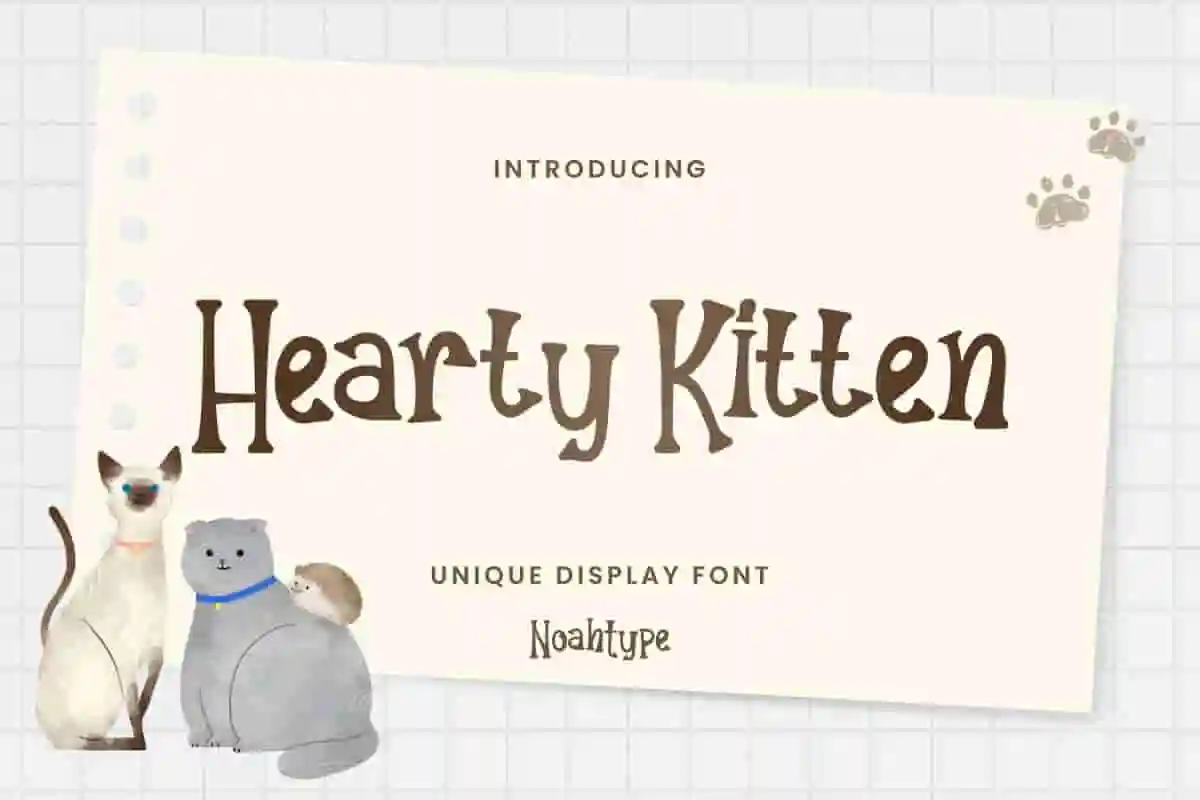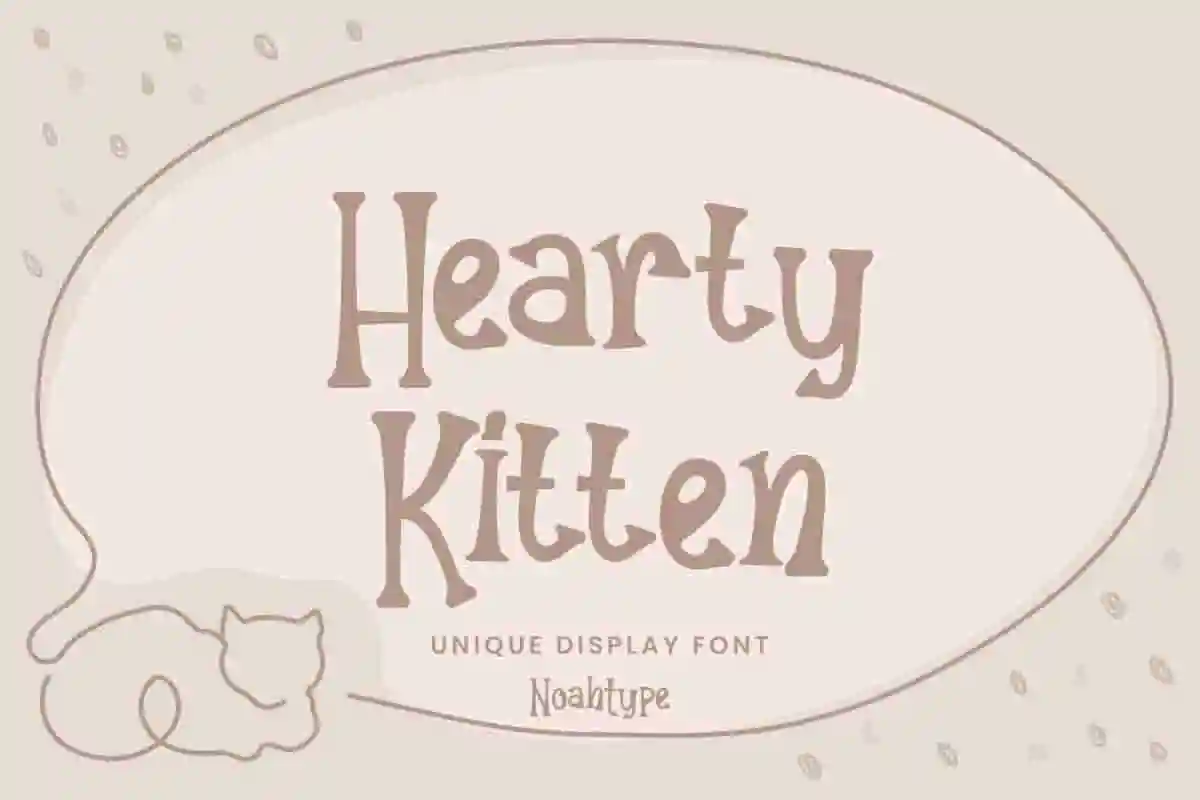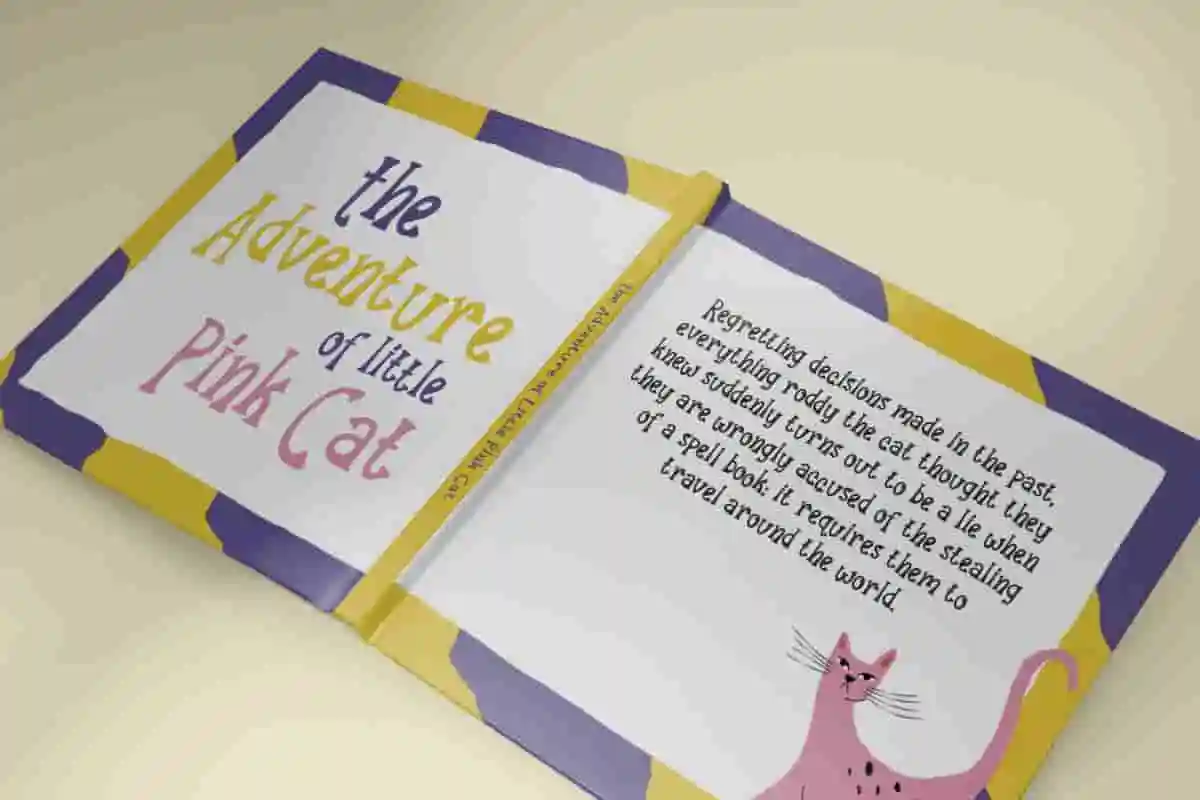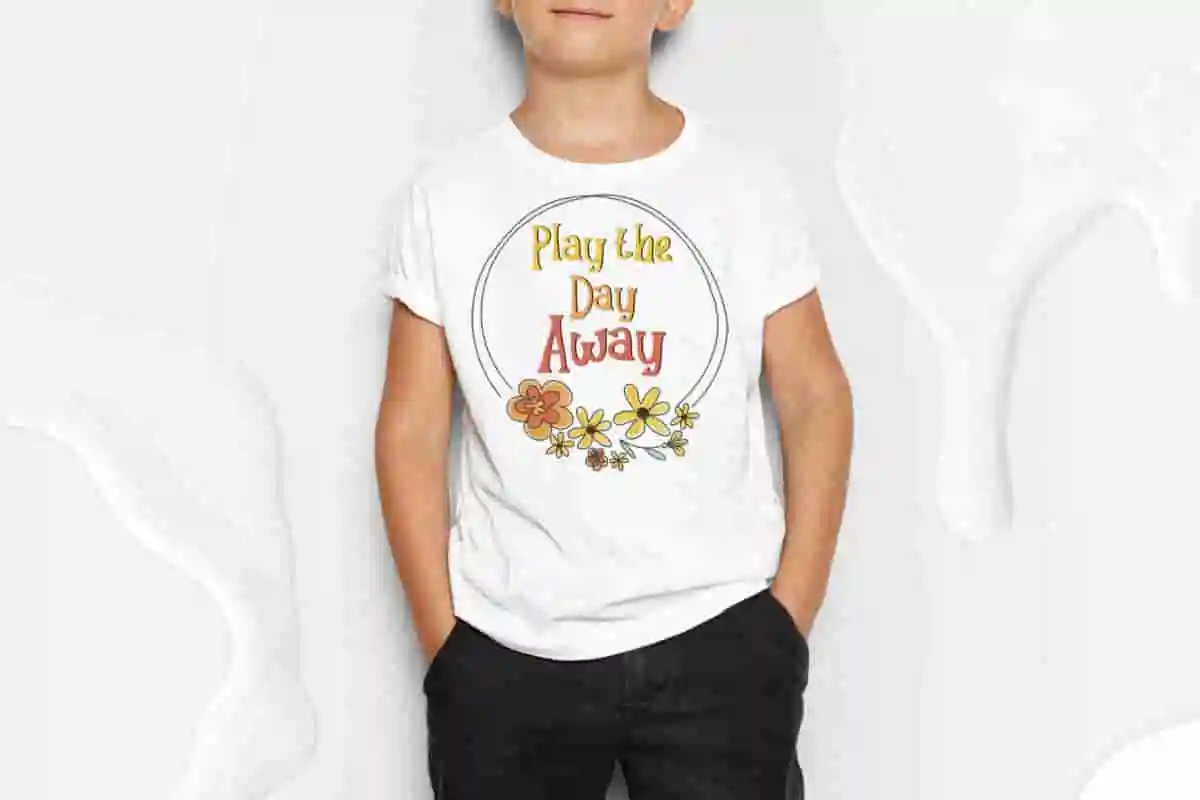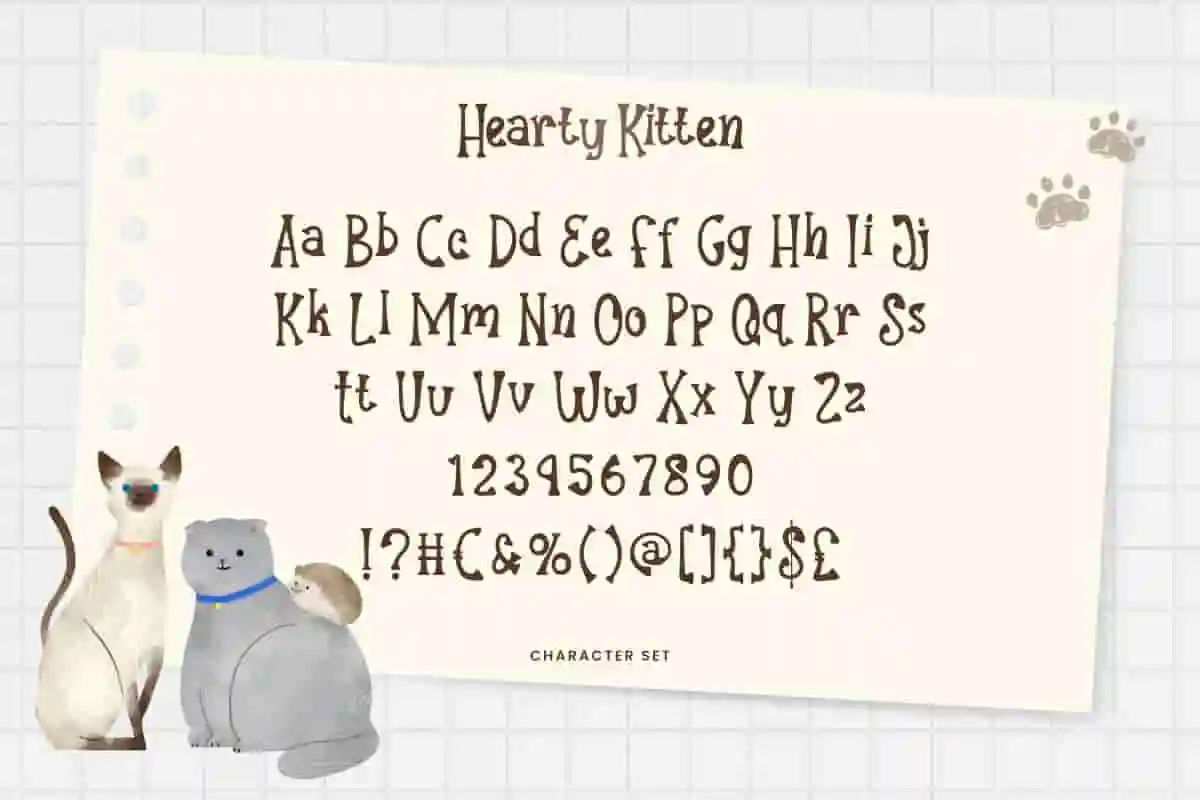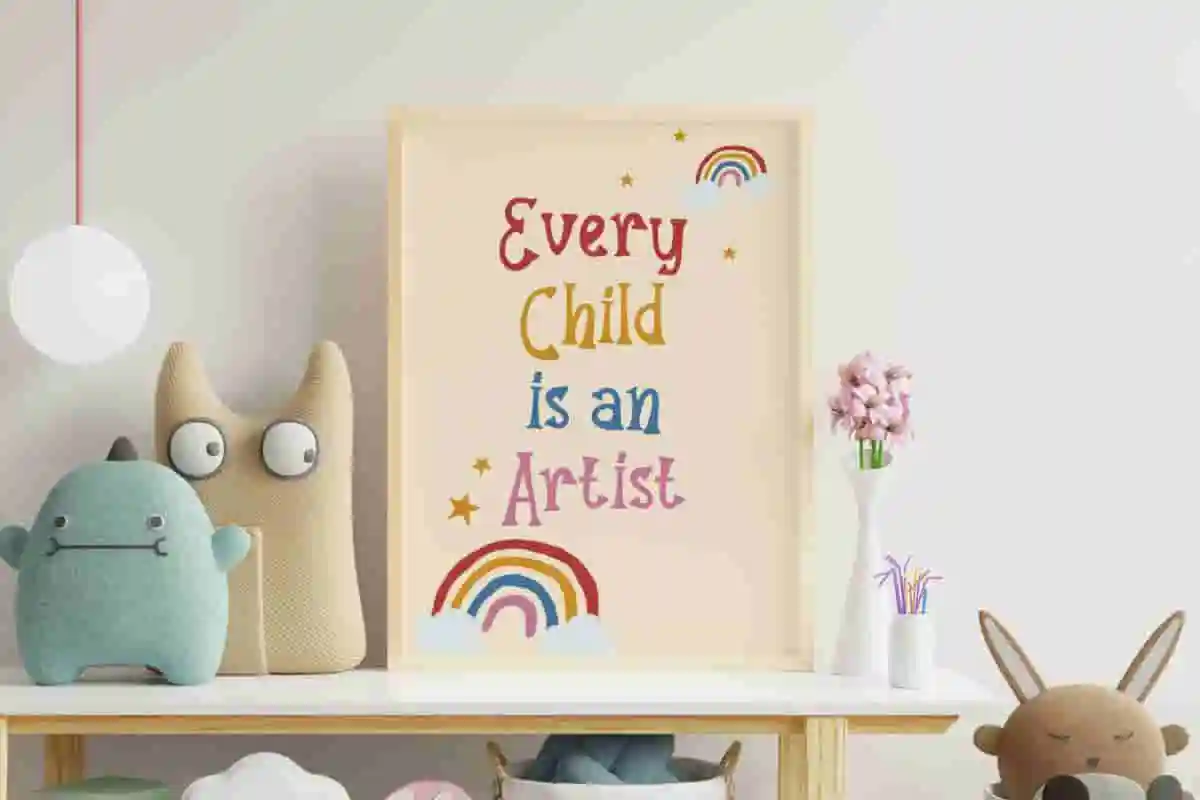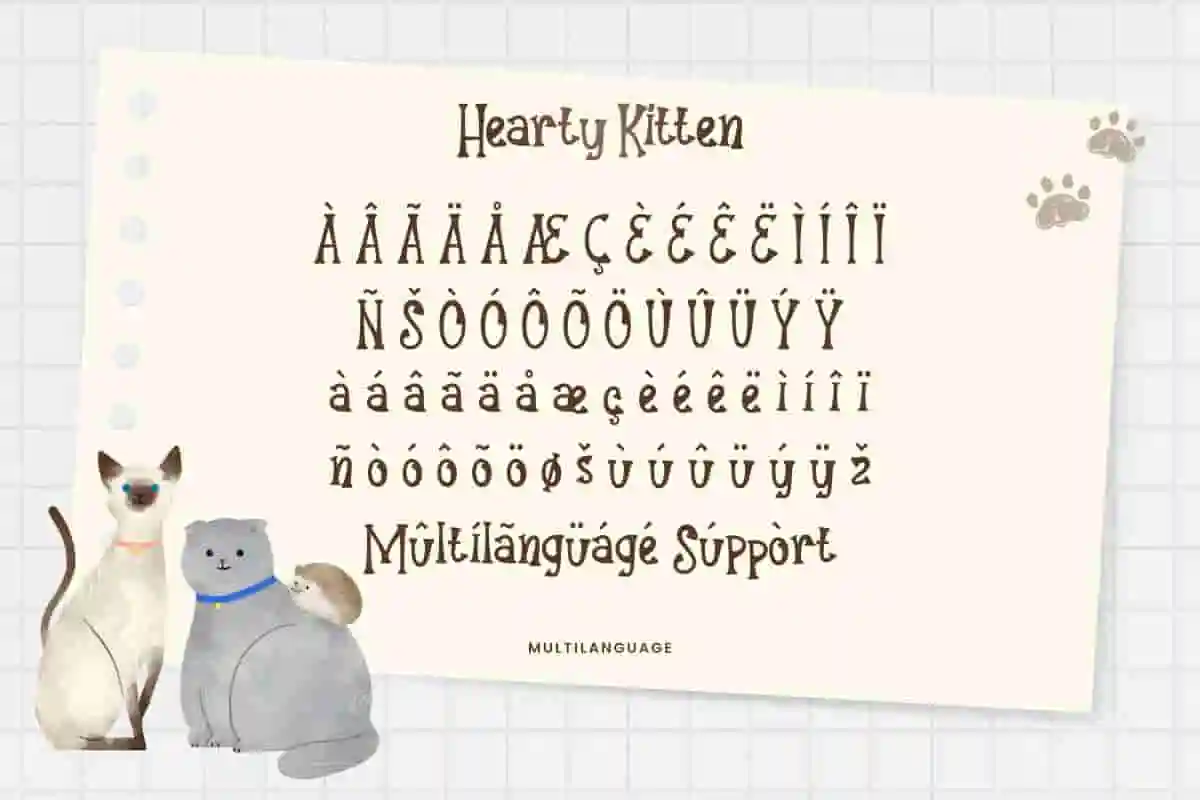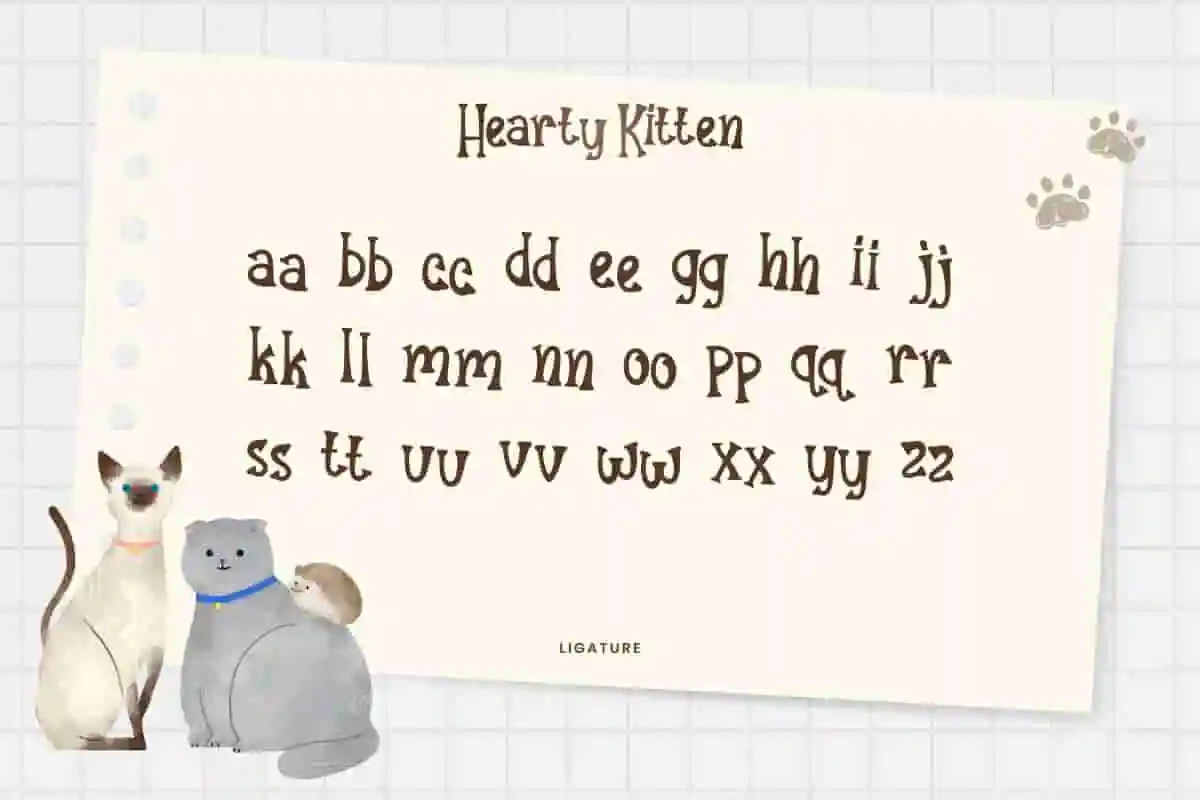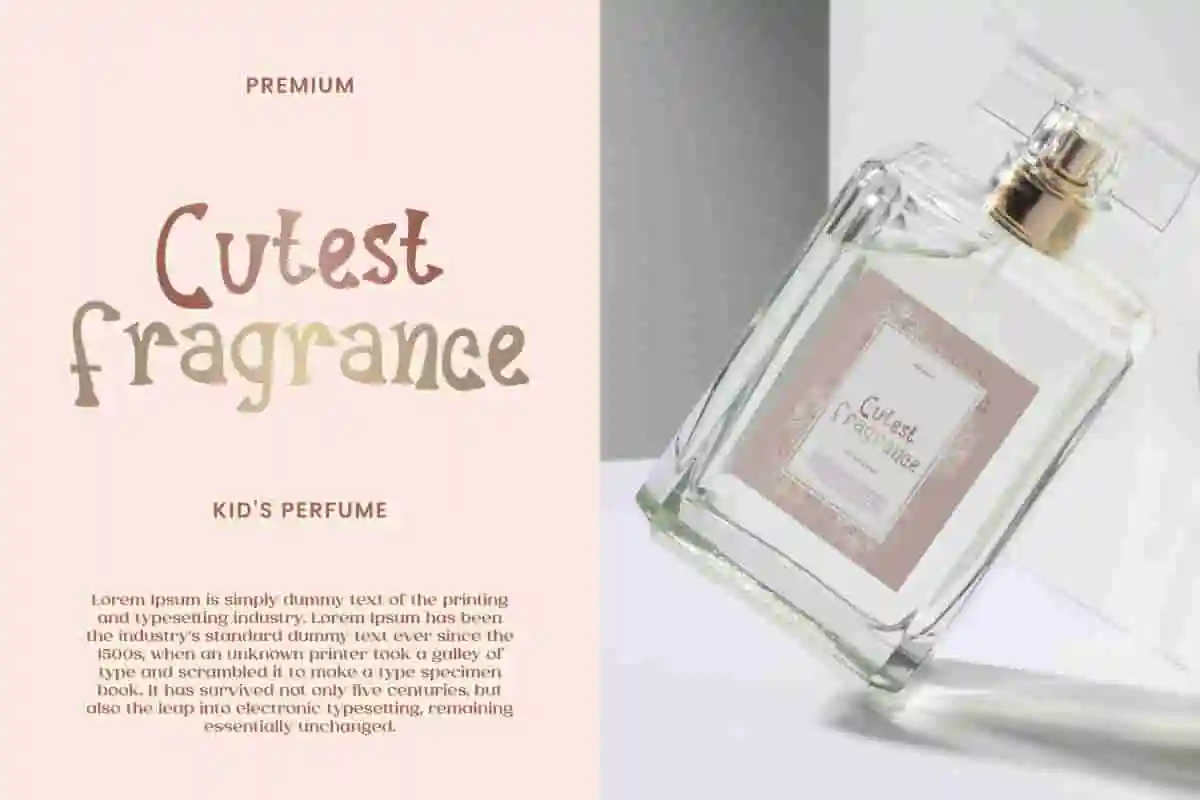
Hearty Kitten Font is a cute display font inspired from an adorable creature : Cats. This font has cute characters like the writing you’d find in a comic book. It would be perfect for many industries, such as accessories, advertising, animation/film, advertising, baby gear, cartoon, clothing brand, handicrafts, kids perfume, library, pet shop, printing, publishing, school, toy, veterinarian, and more!
Hearty Kitten Font includes full set of Uppercase and Lowercase Basic Characters, Numerals and Punctuation. This stylish font also has ligature characters which will be the best choice for various projects, such as cover, frame art, headline, labels, product packaging, screen printing, signage, stationery, website, etc.
This handcrafted display font features a charming, whimsical vibe that’s perfect for branding, logos, invitations, packaging, and social media graphics. Whether you’re designing for a boutique, kids’ products, or lifestyle brands, Hearty Kitten delivers a standout look that grabs attention and leaves a lasting impression.
Hearty Kitten Font supports multilingual languages (including multiple currency symbols) with a simple installation, also has ligature characters options that you can select and use to make it standout. The font will be ready to use both on Windows machine or Mac. It work well on Adobe software such as Illustrator, Photoshop and several other software.